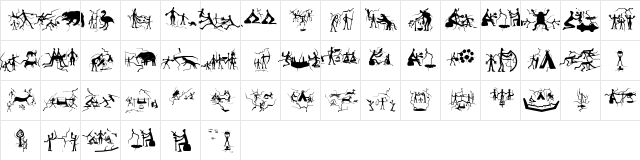
AfterLastWar Regular
AfterLastWar is a composed and adaptable typeface that performs quietly and consistently across a wide range of design contexts.